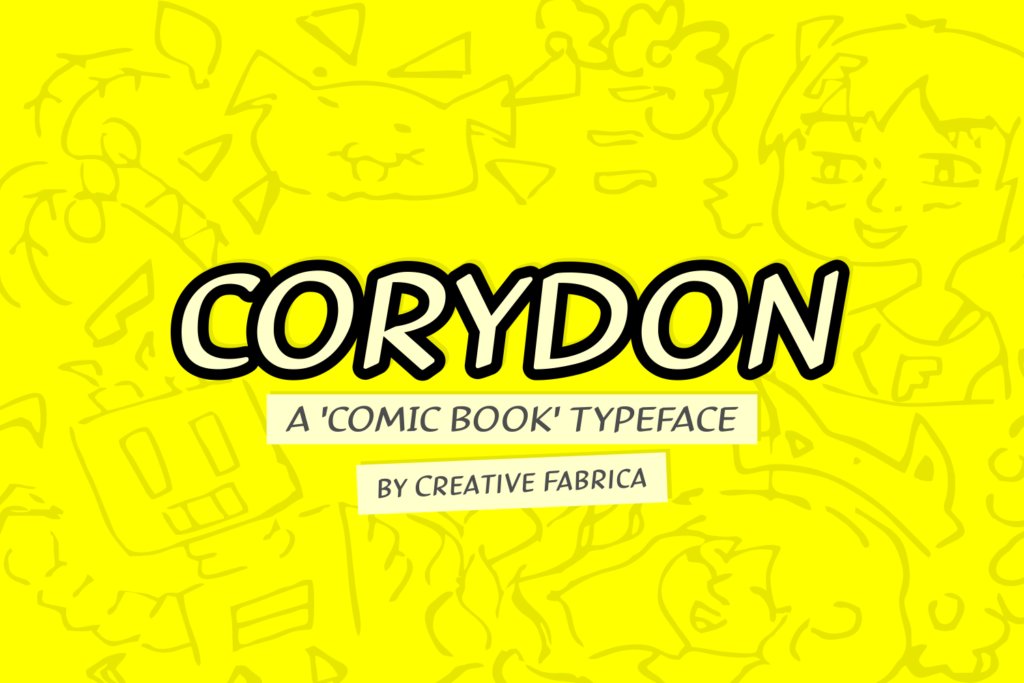
Corydon Font: The Perfect Choice for Comic Books and Text-Heavy Designs
When it comes to choosing the right font for your design project, it can be overwhelming with the numerous options available. However, if you’re looking for a font that is clean, playful, and perfect for comic books, flyers, posters, magazines, and cards, then Corydon Font is the ideal choice. In this article, we’ll explore the features and benefits of Corydon Font and why it’s a great option for text-heavy designs.
What is Corydon Font?
Corydon Font is a clean ‘comic book’ style font that is optimized for large quantities of small text. It’s a hand-drawn font that has a very personal touch, making it stand out from other sans serif fonts. The font is designed to be versatile and can be used for a variety of design projects, including comic books, flyers, posters, magazines, cards, and more.
Key Features of Corydon Font
- Clean and Playful Design: Corydon Font has a clean and playful design that makes it perfect for text-heavy designs that need a fun and playful twist.
- Optimized for Small Text: The font is optimized for large quantities of small text, making it ideal for comic books, magazines, and other text-heavy designs.
- Hand-Drawn: Corydon Font is hand-drawn, which gives it a personal touch and makes it stand out from other fonts.
- Versatile: The font is versatile and can be used for a variety of design projects, including comic books, flyers, posters, magazines, cards, and more.
Benefits of Using Corydon Font
- Easy to Read: Corydon Font is clean and easy to read, making it perfect for large quantities of small text.
- Adds a Personal Touch: The hand-drawn design of Corydon Font adds a personal touch to your design project, making it stand out from others.
- Perfect for Comic Books: The font is specifically designed for comic books and other text-heavy designs that need a fun and playful twist.
- Time-Saving: Corydon Font is optimized for small text, which saves you time and effort in designing and formatting your text.
Design Ideas Using Corydon Font
Corydon Font is a versatile font that can be used for a variety of design projects. Here are some design ideas to get you started:
- Comic Books: Use Corydon Font to create comic books that are fun and engaging.
- Flyers: Use the font to create eye-catching flyers for events, promotions, and more.
- Posters: Create visually appealing posters using Corydon Font.
- Magazines: Use the font to create magazines that are easy to read and visually appealing.
- Cards: Use Corydon Font to create greeting cards, business cards, and more.
In conclusion, Corydon Font is a clean ‘comic book’ style font that is perfect for text-heavy designs that need a fun and playful twist. Its hand-drawn design and optimized features make it easy to read and versatile for a variety of design projects. Whether you’re creating comic books, flyers, posters, magazines, or cards, Corydon Font is the ideal choice.
- What is Corydon Font?
- Corydon Font is a clean ‘comic book’ style font that is optimized for large quantities of small text.
- Is Corydon Font easy to read?
- Yes, Corydon Font is clean and easy to read, making it perfect for large quantities of small text.